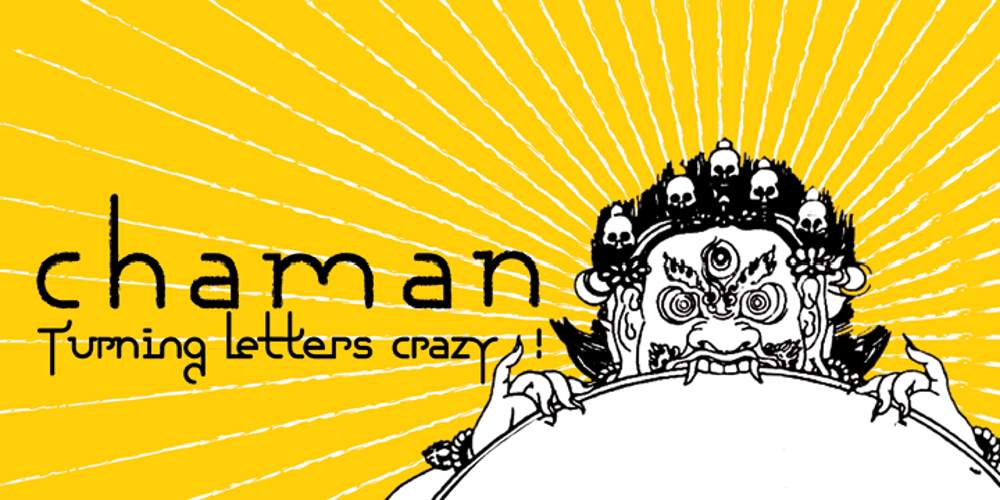
Chaman
Chaman font
Chaman Font Family was designed by Florent Courtaigne and published by Cubo Fonts. Chaman contains 6 styles and family package options. Chaman is a “hybrid” font. On the one hand serifless, temperate and readable, and on the other hand quick and livily as a manual script, thanks to many unexpected ligatures. Letter design is plain and functional, punctuated by dynamic elements, mostly in ligatures and contextual glyphs, generated at the beginning and end of the word, thanks to your software’s OpenType features. It draws inspiration from the Tibetan alphabet, originally close to our own latin alphabet, as it stems from Bhram handwriting, itself derived from Phoenician alphabet. This alternation of stright vertical lines and regular bows makes Chaman’s design stand out.